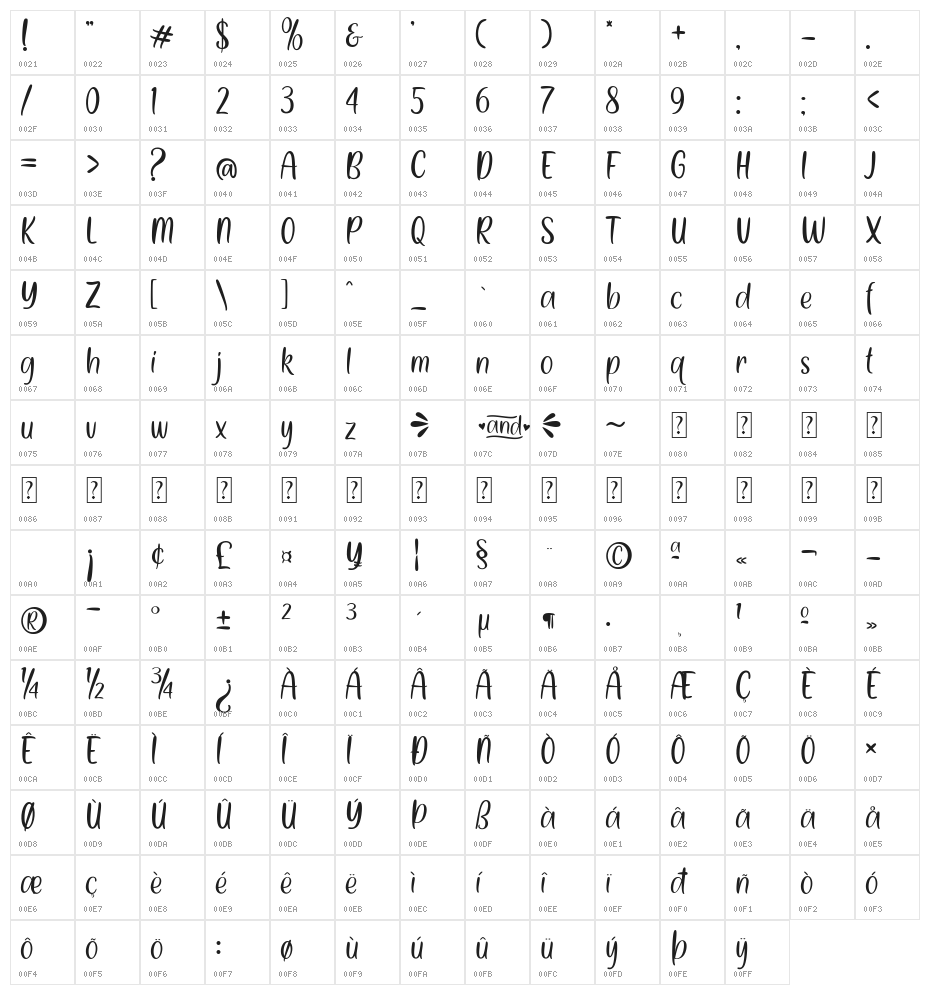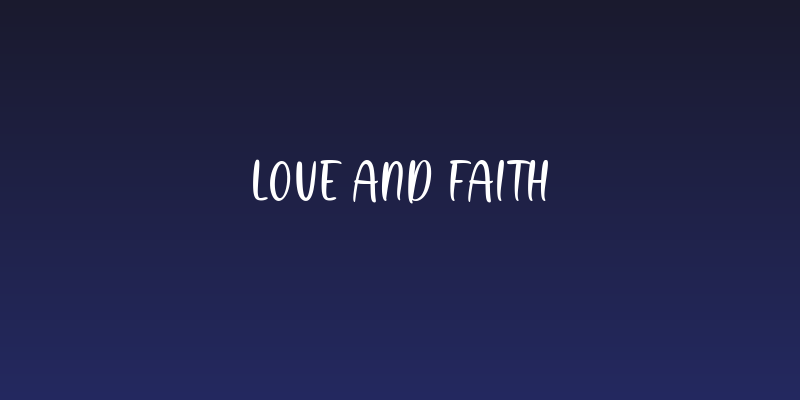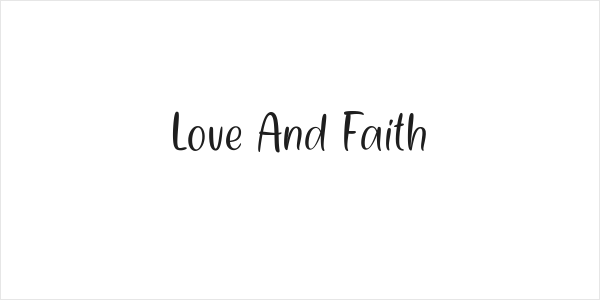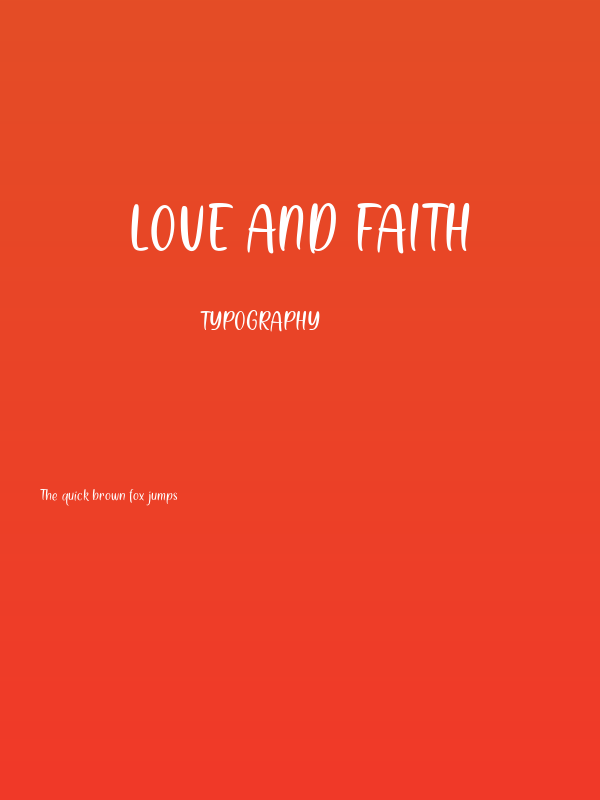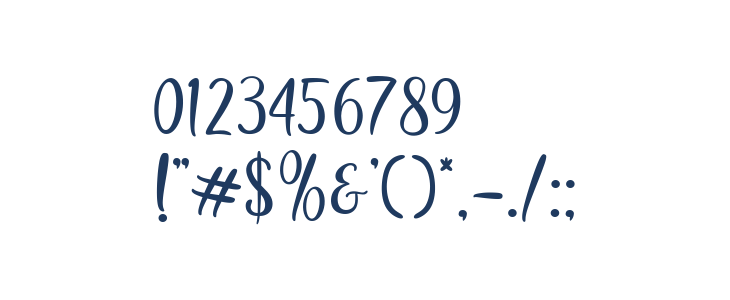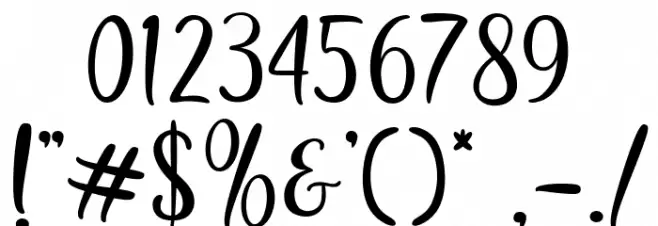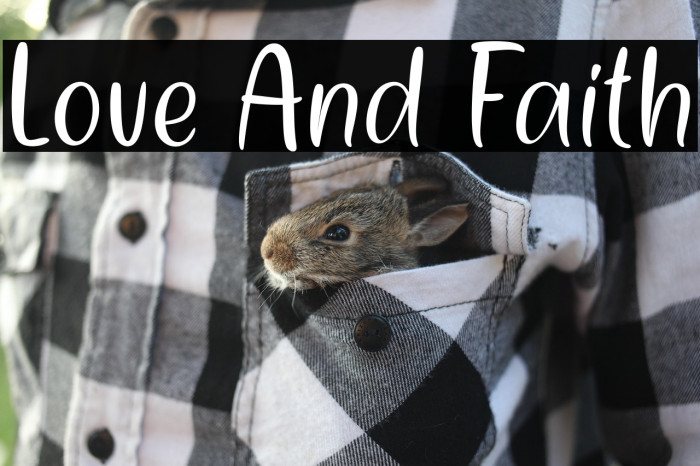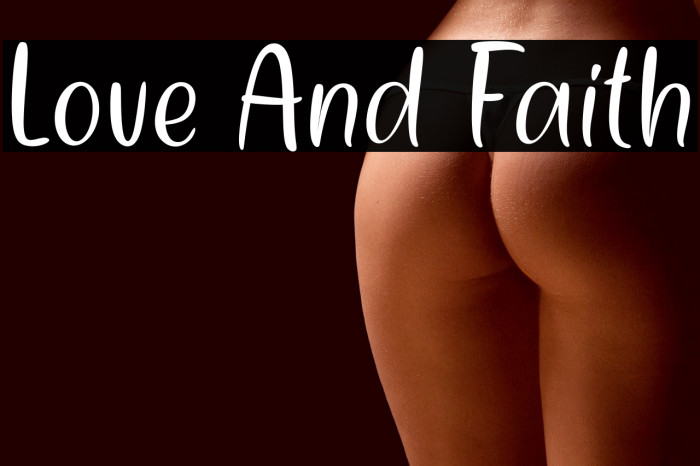
Love And Faith Font
Love And Faith Description
This font features a playful and casual handwritten style, characterized by smooth, flowing curves and a slightly slanted orientation. The letters are well-rounded with a consistent stroke width, giving it a harmonious and approachable appearance. The uppercase letters are bold and prominent, while the lowercase letters maintain a friendly and inviting look. Numbers and special characters are crafted with the same fluidity, ensuring a cohesive design throughout. This font's informal and lively nature makes it ideal for projects that require a personal touch.
| Overall Style | Casual, Playful |
| Use Case | Headlines, Logos, Informal text |
| Proposed Projects | Greeting cards, invitations, social media graphics, personal branding, and casual event posters. |